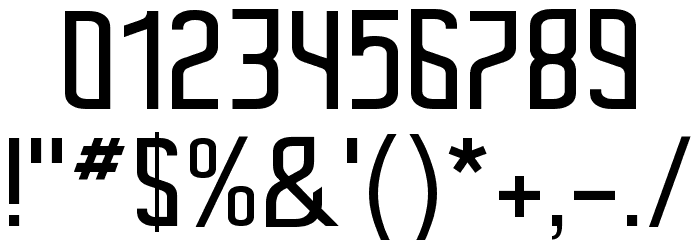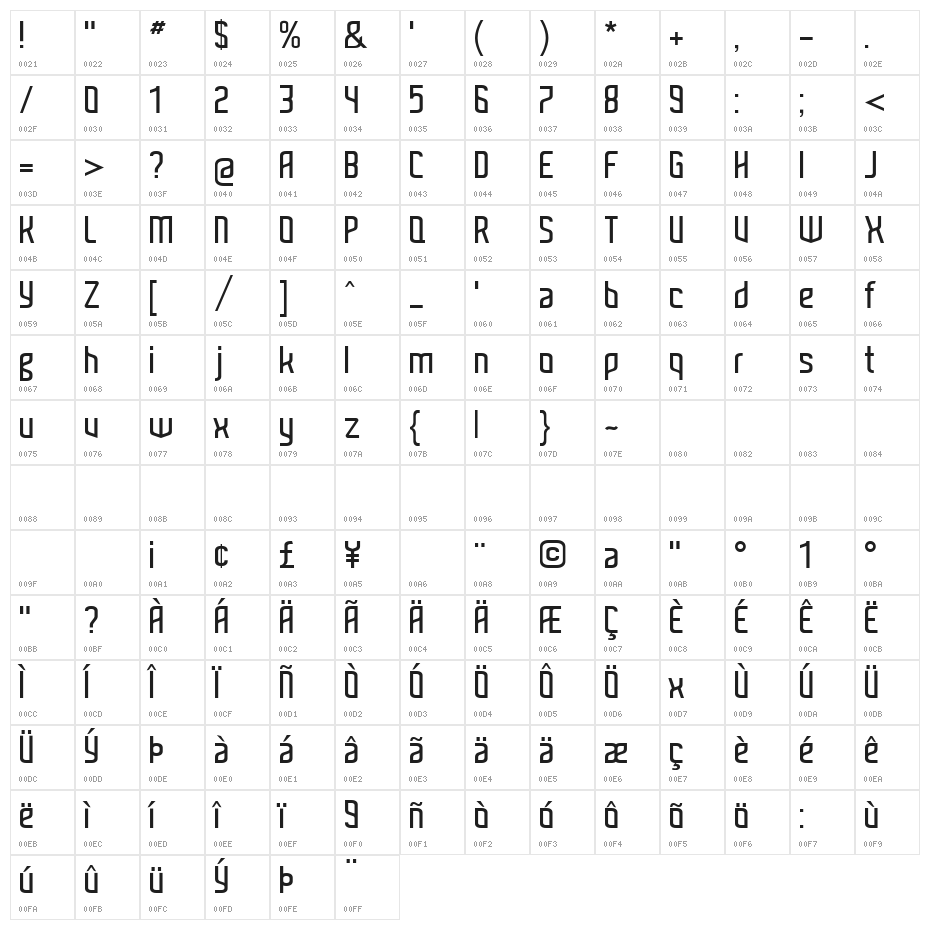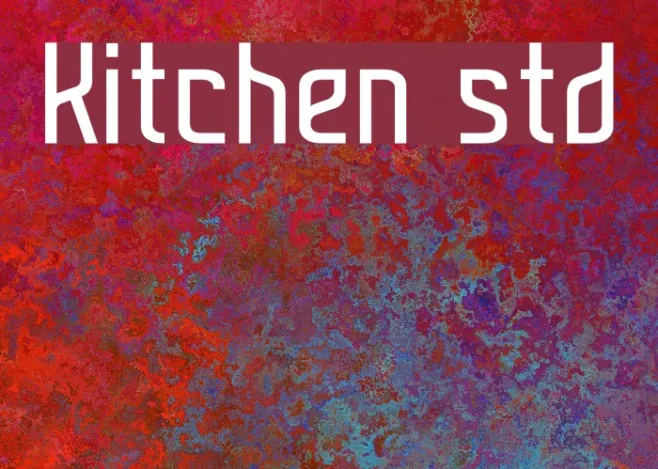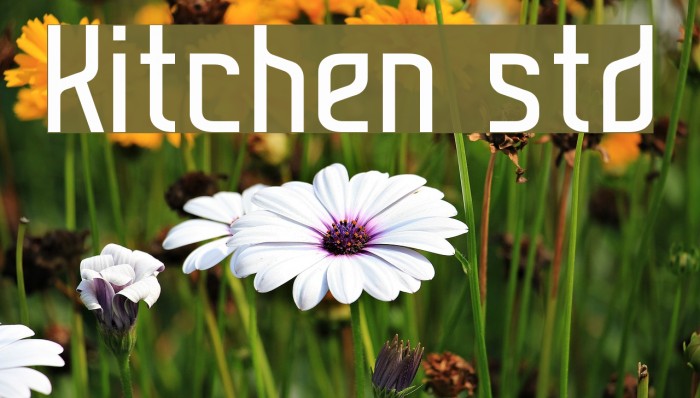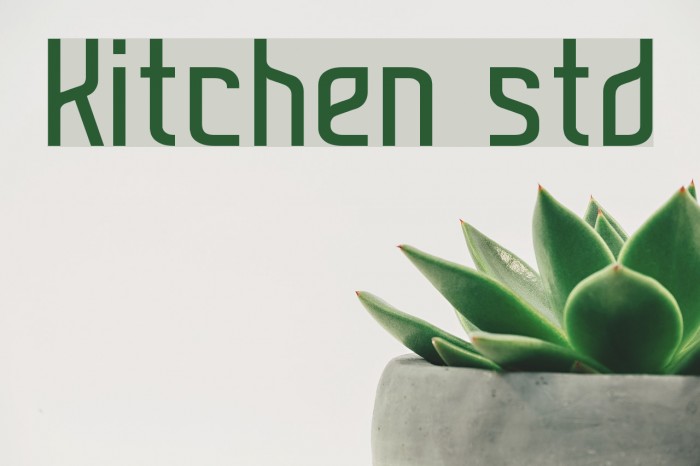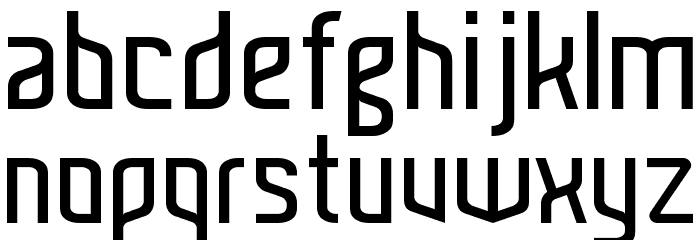
Kitchen std Font
Kitchen std Description
This font features a modern and geometric design with clean, straight lines and a uniform stroke width. The characters are slightly condensed, giving them a compact appearance. The uppercase letters are bold and assertive, while the lowercase letters maintain a consistent style with a touch of elegance. The numerals are clear and easy to read, matching the overall aesthetic of the font. Special characters are well-integrated, maintaining the geometric theme. This font is versatile, suitable for various design projects that require a contemporary and sleek look.